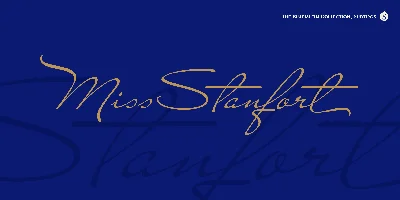
Miss Stanfort Pro Font
Miss Stanfort Pro Font is an elegant and sophisticated script typeface that radiates a beautiful blend of classic calligraphy and modern fluidity. Its graceful, flowing lines and charming handcrafted appeal make it an exceptional choice for projects aiming to convey luxury, intimacy, and a personal touch with refined artistry. Imagine it perfect for elegant wedding invitations, high-end fashion branding, gourmet product packaging, heartfelt greeting cards, captivating social media graphics, and unique custom merchandise or signage for boutiques. This font excels in environments where a sense of bespoke quality, romantic allure, and polished artistry are paramount. It’s particularly effective for conveying sincerity and a memorable aesthetic, ensuring your message not only stands out but also resonates with an irresistible grace and personal appeal.
What makes Miss Stanfort Pro Font truly exciting is its ability to infuse designs with a sense of authentic beauty and emotional resonance. It often features delicate swashes, ligatures, and stylistic alternates that mimic genuine, effortless handwriting, giving each character a unique, almost bespoke feel. This font isn't just about displaying text; it's about telling a story with elegance and warmth, injecting your designs with a sense of personal connection and undeniable charm. It has a powerful ability to feel both incredibly luxurious and surprisingly versatile, making it an ideal tool for designers who want their work to convey sophistication, sentiment, and a truly memorable visual impact. Miss Stanfort Pro Font empowers brands and creatives to project an image that is refined, authentic, and full of heartfelt artistry.
The Miss Stanfort Pro Font family typically offers a range of options to enhance its versatility and expressive capabilities. You'll often find it available in a strong, elegant regular weight, with some versions including stylistic alternatives for certain characters, a wide variety of ligatures, or a set of swashes that further emphasize its handcrafted appeal and allow for more customized typographic compositions. These features enable designers to achieve a truly unique, hand-lettered look with ease. The comprehensive character set generally covers standard Latin characters, numbers, and a selection of punctuation marks, ensuring that Miss Stanfort Pro Font is suitable for a wide variety of creative and commercial applications. Its distinctive and memorable presence ensures that any project featuring Miss Stanfort Pro Font will leave a strong, lasting impression.